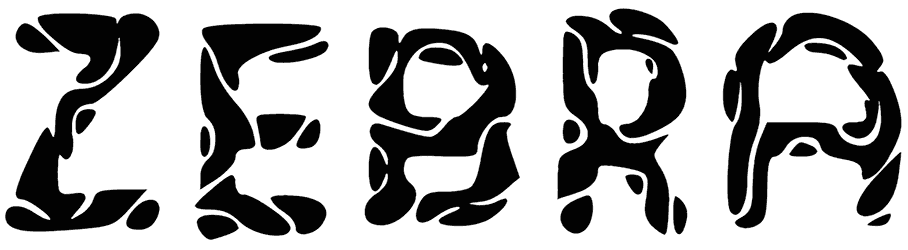
Zebra Font
Designed byFaris Sufri
Zebra will help you in any situation where your goal is to communicate fun and feel professional. This zoo font has lines inside each letter that create an appearance similar to the body of a zebra.
By combining a background correctly, you can turn it into a font with signs of cracks and use it to promote cultural advertisements related to water conservation. In any case, the special and creative appearance can help you to implement different points of view.